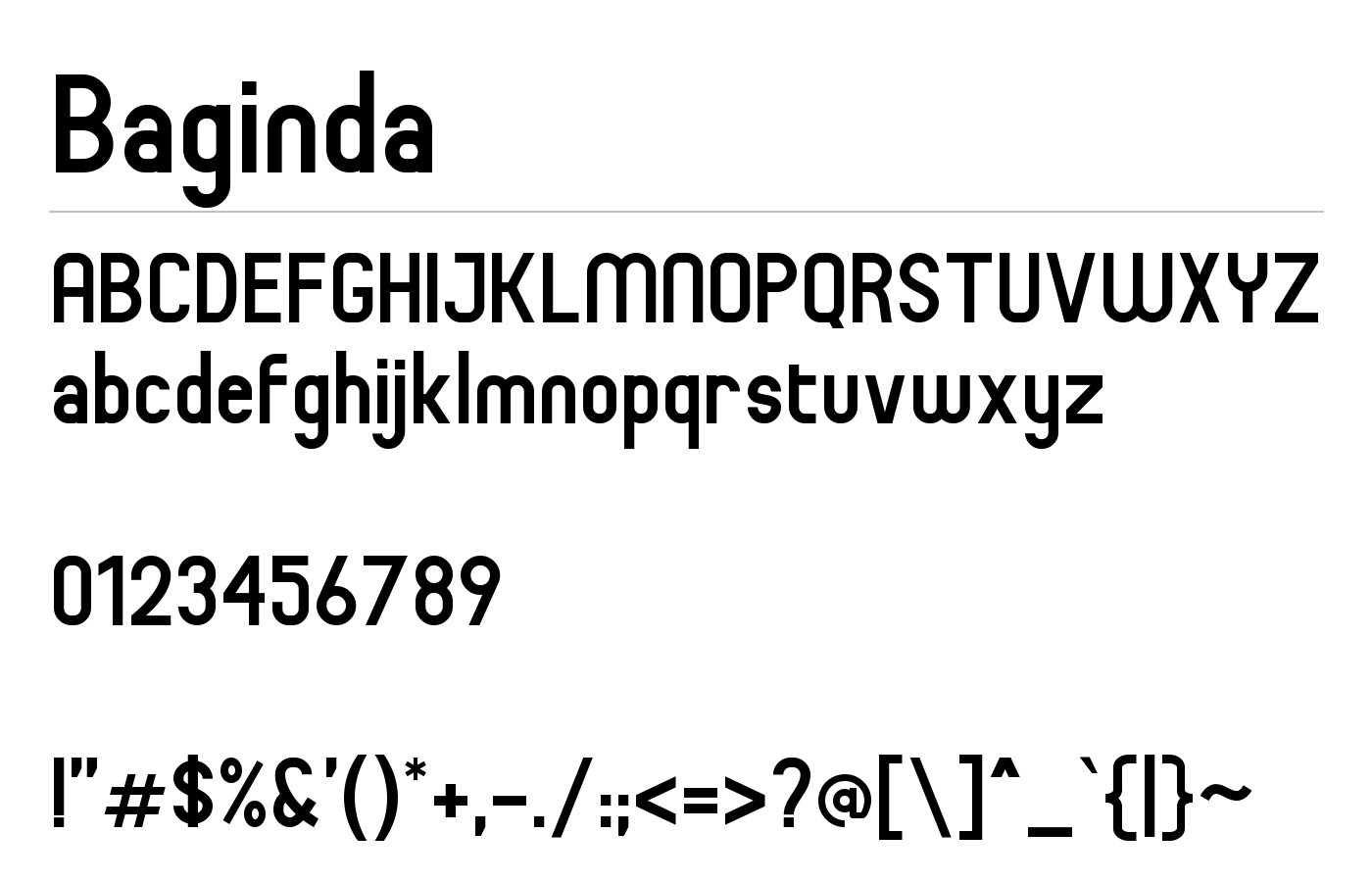
Baginda is a modern sans serif font with a clean, condensed appearance and strong geometric shapes. It features a medium weight and balanced x-height, creating a straightforward and slightly technical feel ideal for contemporary branding, editorial headlines, and digital interfaces. Its sharp angles and uniform stroke contrast make it versatile for projects that require a bold yet refined aesthetic.
Baginda Font
About Baginda Font